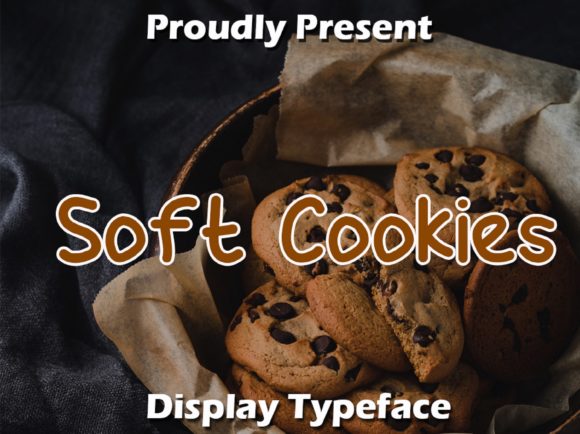
Dive into the world of Soft Cookies Font - a masterpiece crafted to take your designs to new heights of creativity, captivation, and authenticity. This display font, exclusively designed by scriptstrategy, is your secret weapon to capture the essence of alluring chalkboard quotes, educational materials, and more. Step into a world where your words come alive, leaving a lasting impression on your audience.
Soft Cookies Font, with its enchanting aura, effortlessly transports you to a realm of nostalgia and charm. Its meticulously crafted characters evoke a sense of warmth, inviting you to explore a world of creative possibilities. This display font is not just a collection of letters; it's a symphony of artistic expression, meticulously designed to add a personal and realistic touch to your designs.
With Soft Cookies Font, you can effortlessly elevate your teaching materials, crafting engaging presentations and worksheets that ignite the imagination of young learners. Its playful yet legible style makes it the perfect font to bring life to your educational resources, ensuring that your students remain captivated and eager to learn.
Dare to be different with Soft Cookies Font. Break free from the mundane and embrace a world of artistic freedom. Let your creativity soar as you craft stunning social media posts, eye-catching logos, and enchanting invitations that leave an indelible mark on your audience. Soft Cookies Font is your key to unlock a world of possibilities, empowering you to express yourself in ways you never thought imaginable.
Transform your creative vision into a reality. Embrace the magic of Soft Cookies Font and embark on a journey of artistic exploration. Discover the endless possibilities that await within this remarkable display font, designed to unleash your creativity and leave a lasting impression. Elevate your designs, ignite imaginations, and immerse yourself in a world of artistic expression like never before.